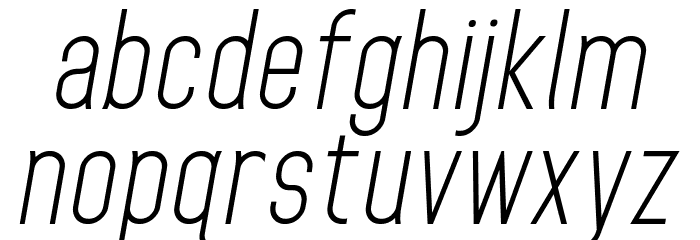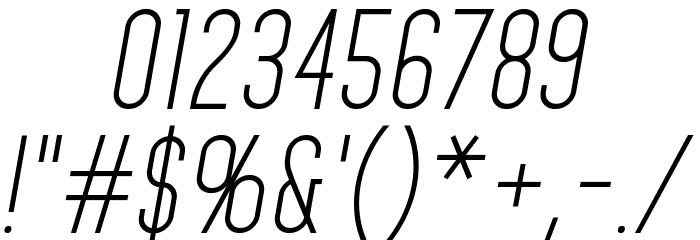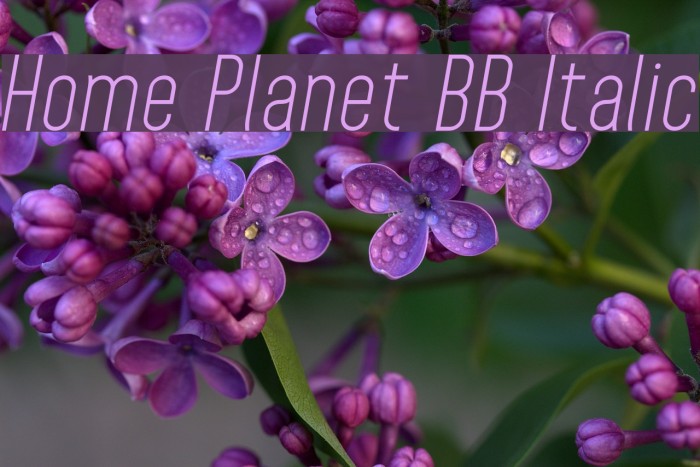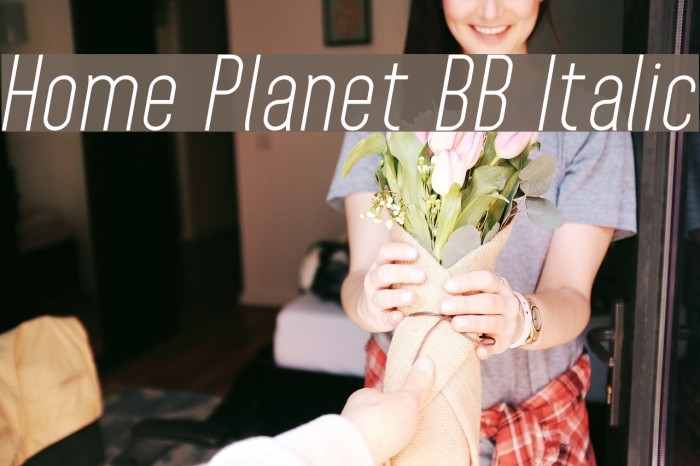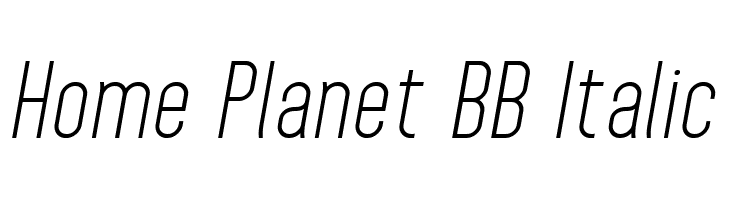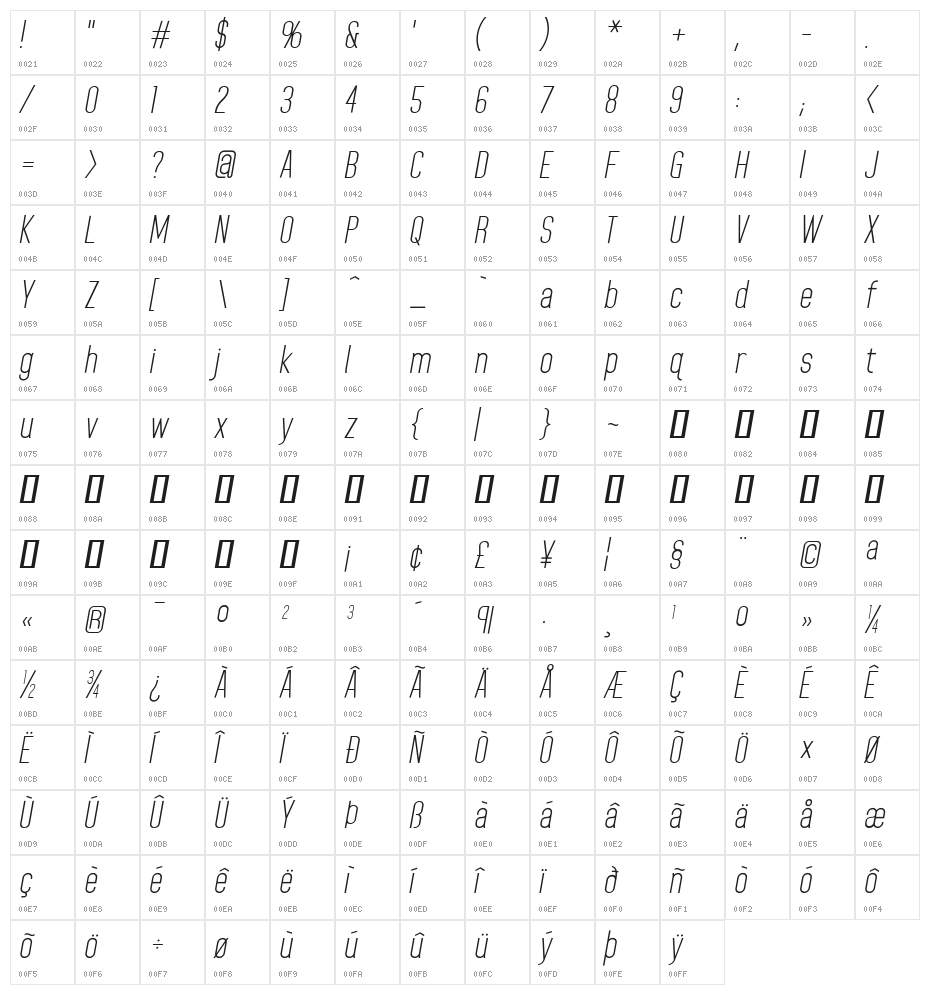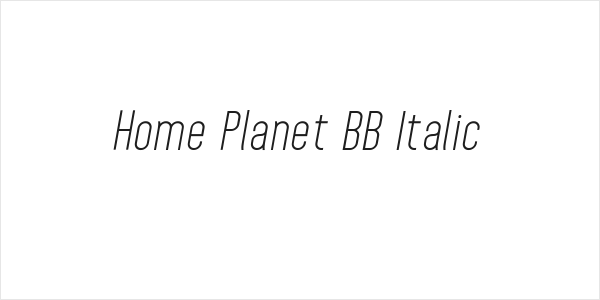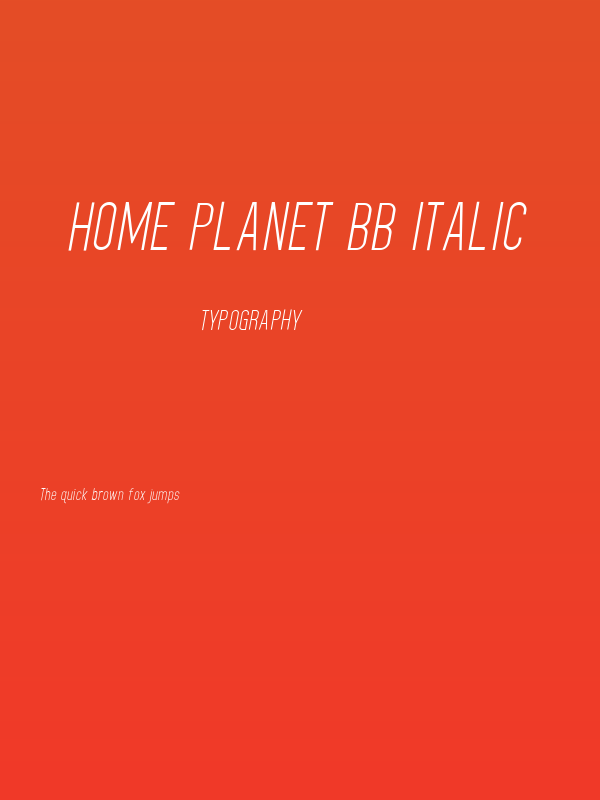
Home Planet BB Italic Font
This font features a sleek and modern design with a distinct italic slant, giving it a dynamic and forward-moving appearance. The characters are tall and narrow, contributing to a condensed look that is both stylish and efficient in space usage. The strokes are consistent in width, providing a uniform and clean aesthetic. The uppercase and lowercase letters maintain a harmonious balance, while the numerals and special characters are crafted to match the overall style seamlessly. This font's contemporary feel makes it suitable for a variety of design applications.
A sleek, italicized font with a modern, condensed design.
- Proposed Projects: Ideal for branding, editorial design, digital interfaces, and advertising campaigns.